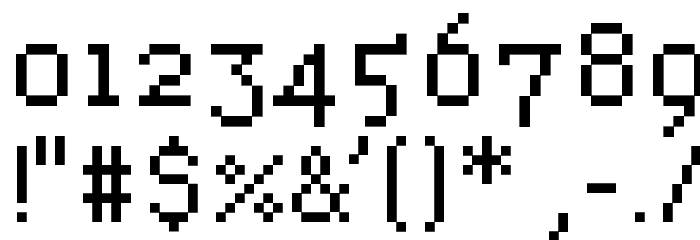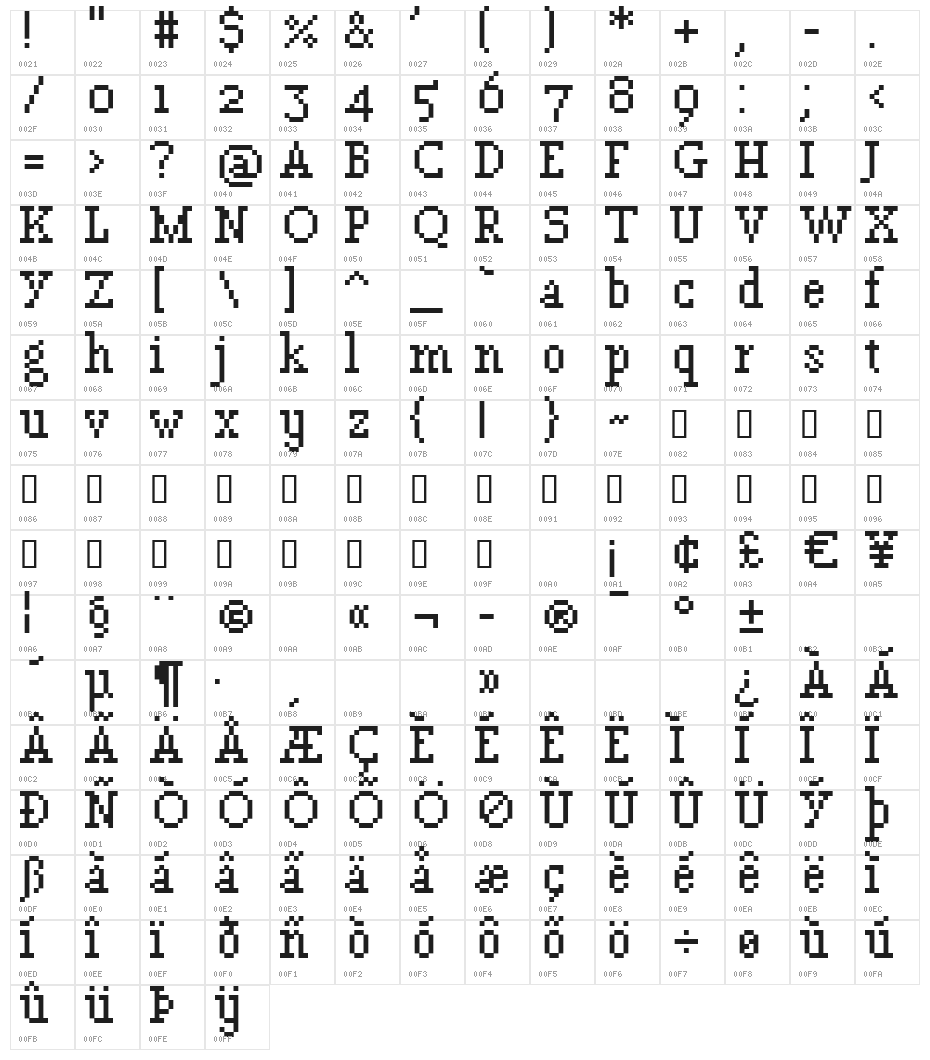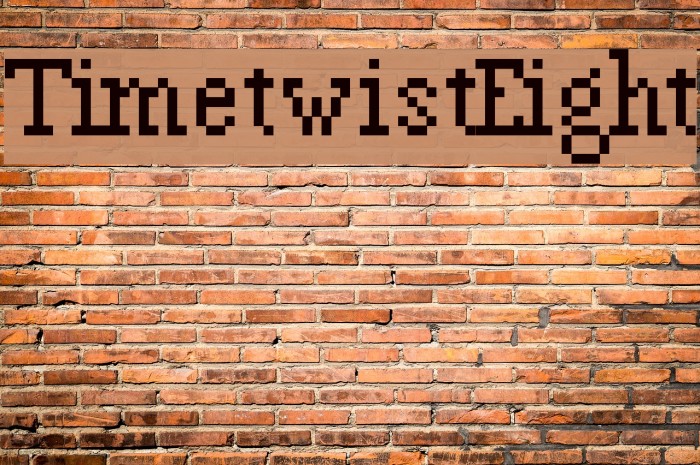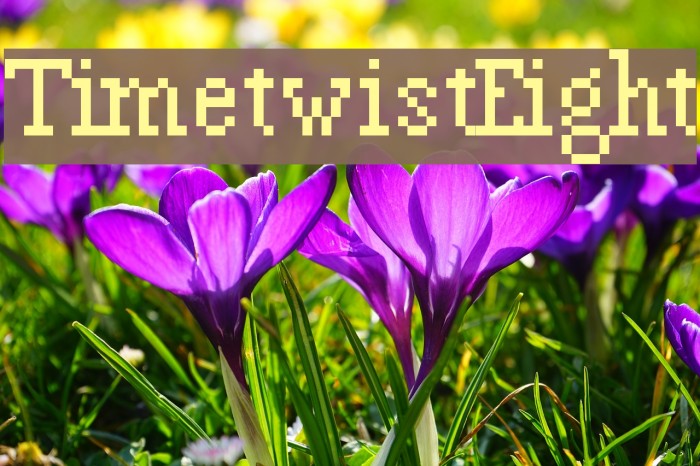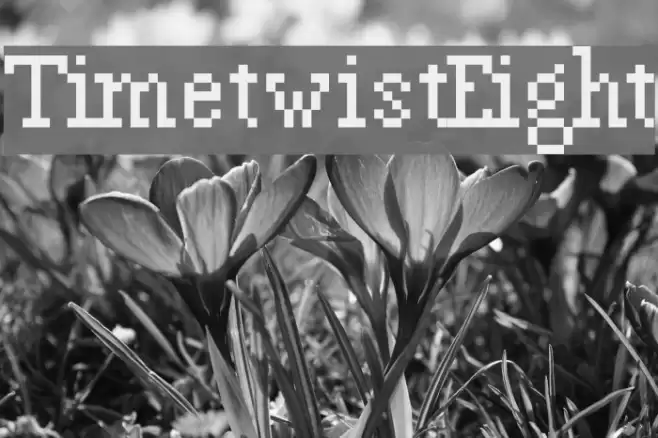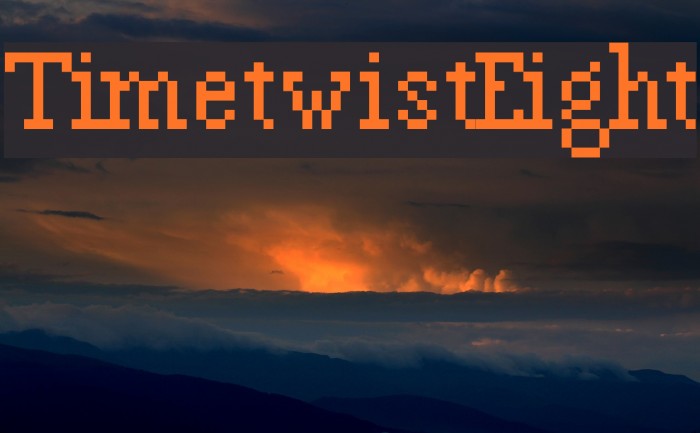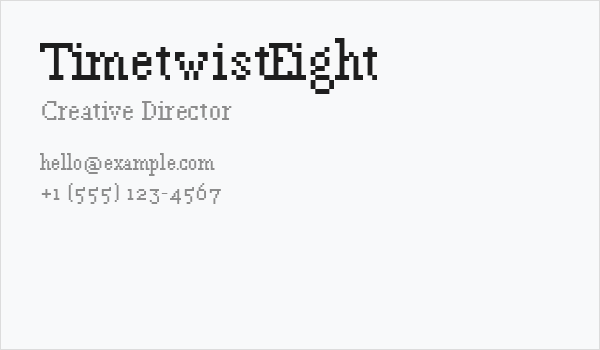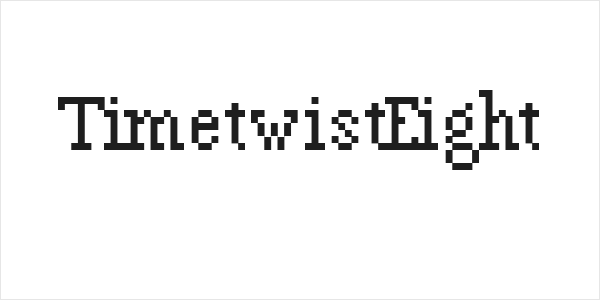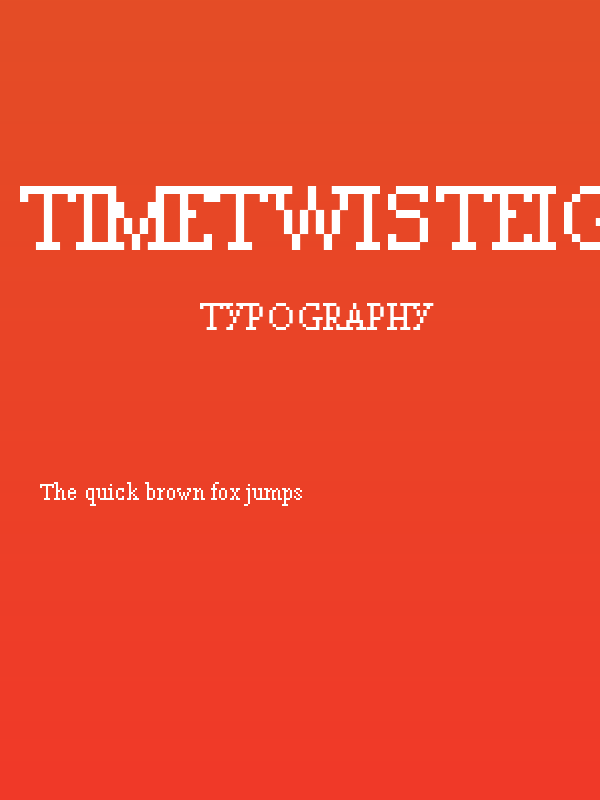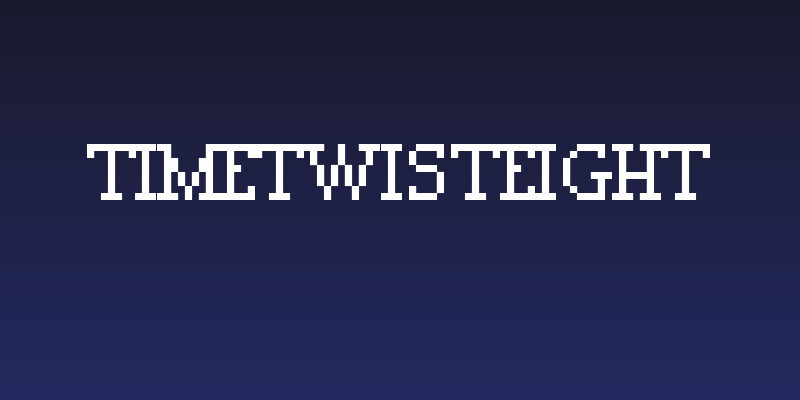
TimetwistEight Font
TimetwistEight Description
This font exhibits a pixelated, retro style reminiscent of early digital displays and classic video games. The characters are constructed with a blocky, grid-like appearance, giving it a distinct, nostalgic feel. Uppercase and lowercase letters maintain a consistent height and width, contributing to a uniform look. The numerals and special characters follow the same pixelated design, ensuring cohesion across all glyphs. This font's unique aesthetic makes it ideal for projects that aim to evoke a sense of nostalgia or pay homage to digital art from the past.
| Use Case | Logos, Headlines, Digital Art |
| Proposed Projects | Ideal for retro video game designs, digital art projects, and nostalgic branding. |